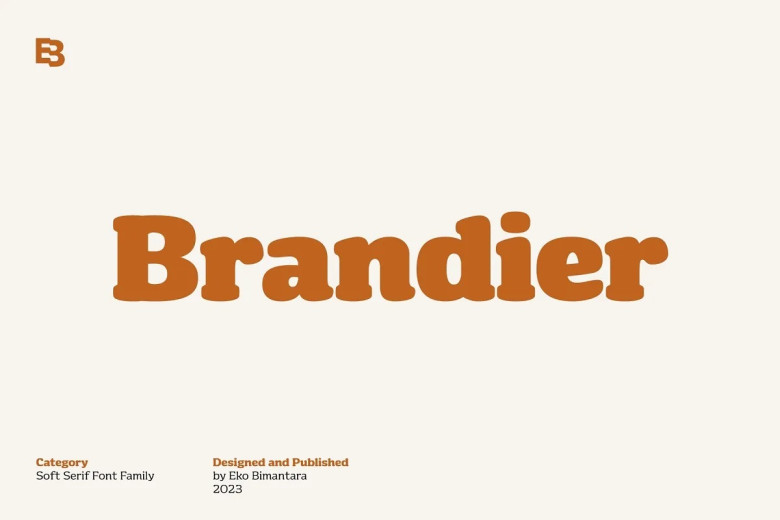
Brandier Font
Brandier is a soft serif font that evokes retro typographic styles from the 1970s with its soft edges, bold designs, and heavy weights. Its large x-height, balanced regular and italics designs, warm and playful design makes for an enjoyable reading experience – making this font suitable for applications such as Logo design, Text and Display usage, Website design or any other creative projects that call for retro fonts.
Brand Identity Development, Product Packaging, Catering to a Wide Range of Graphic Design Needs. This font family comprises 16 Styles from Thin up to Black; Each comes complete with Italic version for maximum flexibility.
Brandier Serif Font Family